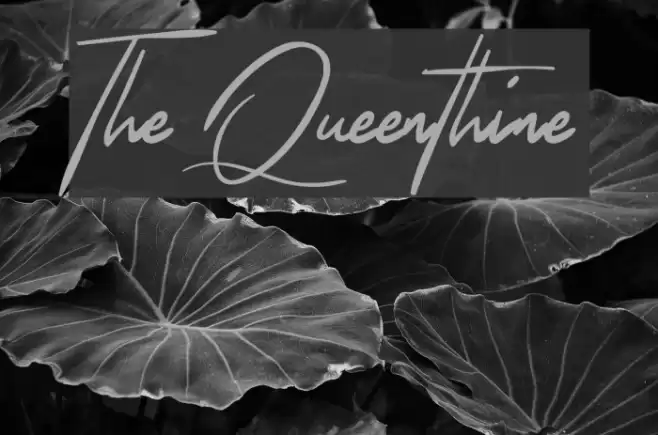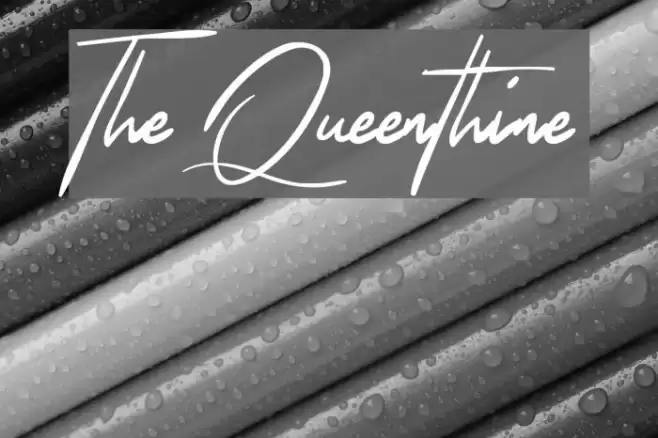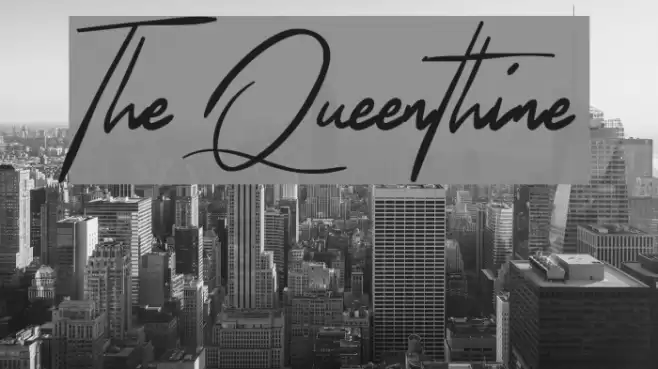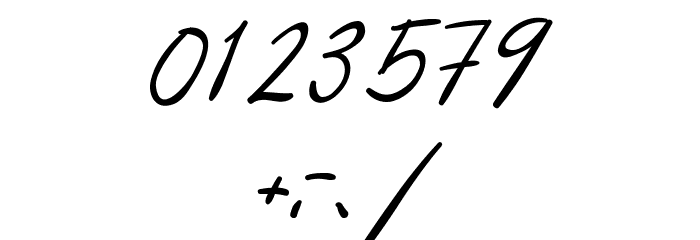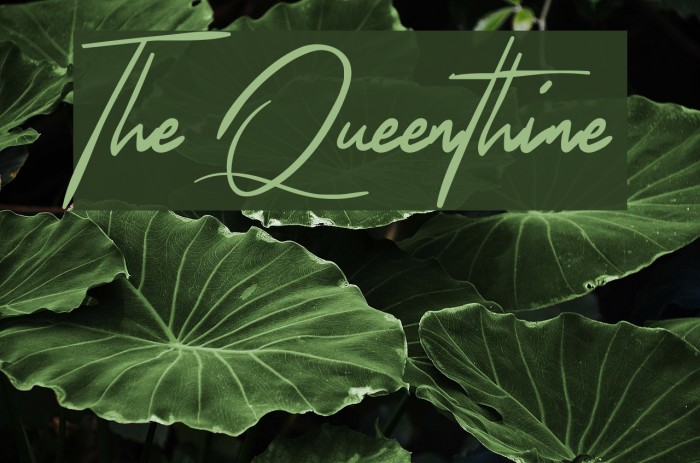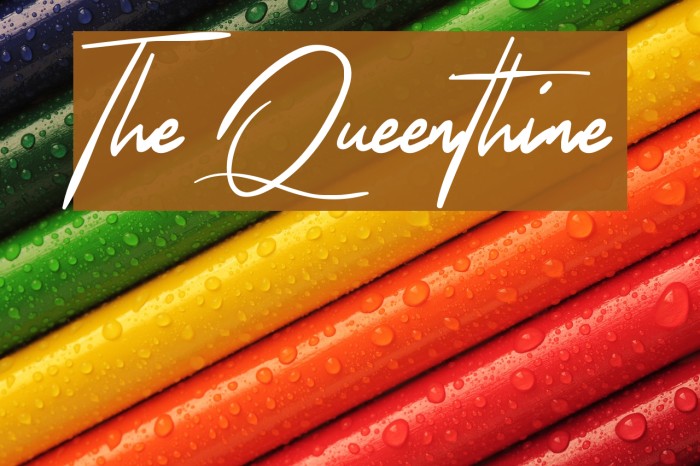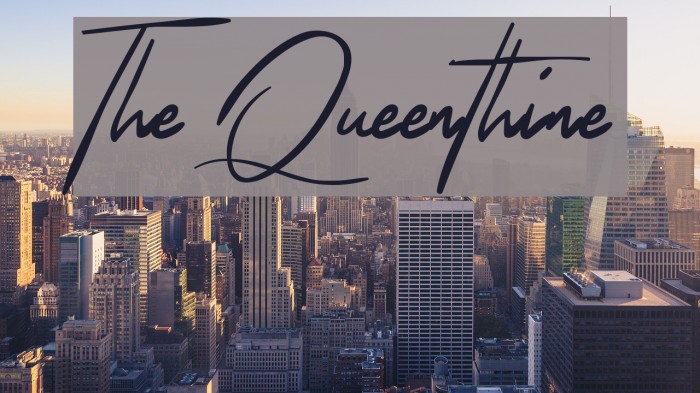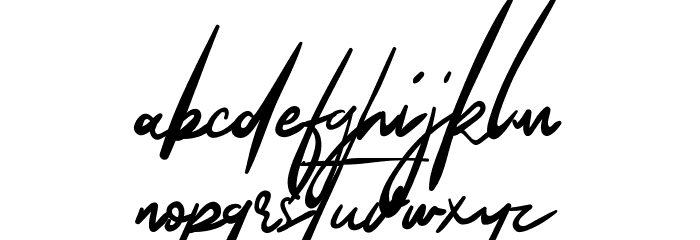
The Queenthine Font
The Queenthine Description
This font exudes a dynamic and energetic feel with its fluid, handwritten style. The characters are crafted with a sense of motion, featuring elongated strokes and a slight slant that adds to its expressive nature. The uppercase letters are bold and prominent, while the lowercase letters maintain a consistent flow, enhancing readability despite their cursive form. Numbers are clear and distinct, matching the overall aesthetic. Special characters are integrated seamlessly, maintaining the font's cohesive look. This font is ideal for projects that require a personal touch or an artistic flair.
A dynamic, handwritten font with fluid strokes and a lively, expressive style from Uncategorized fonts.
- Proposed Projects: Ideal for invitations, greeting cards, artistic posters, and branding materials that require a personal or creative touch.
- Use Case: Headlines, Artistic projects, Branding